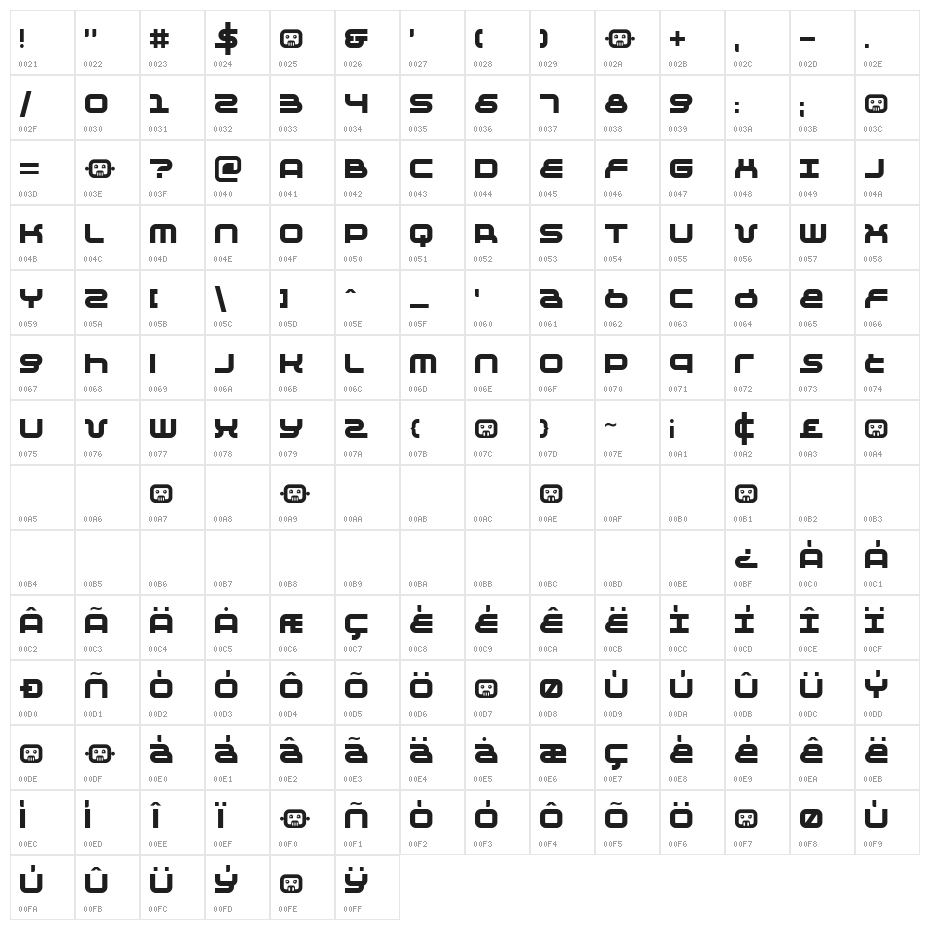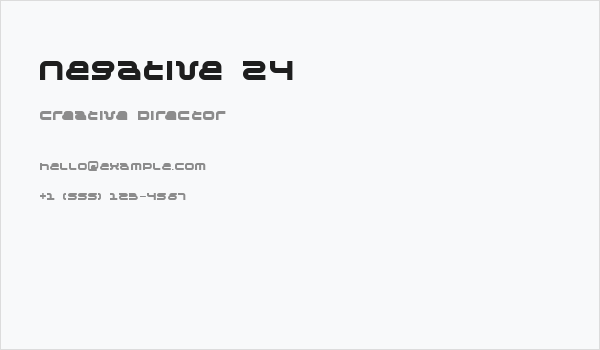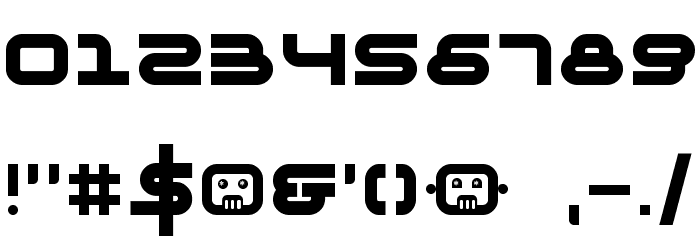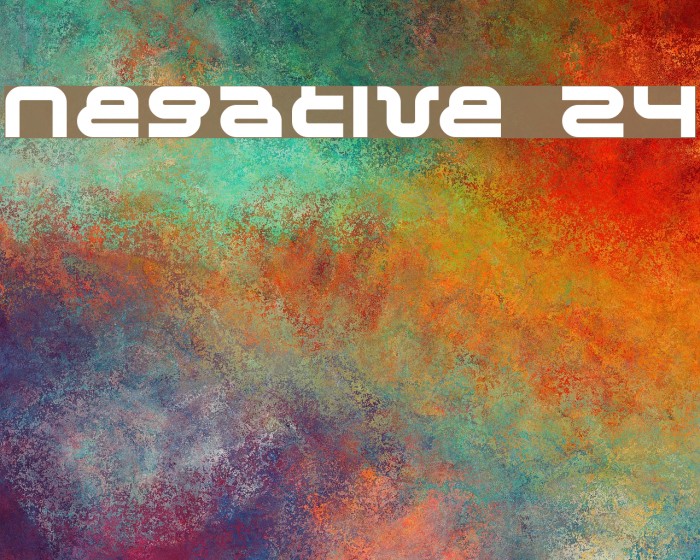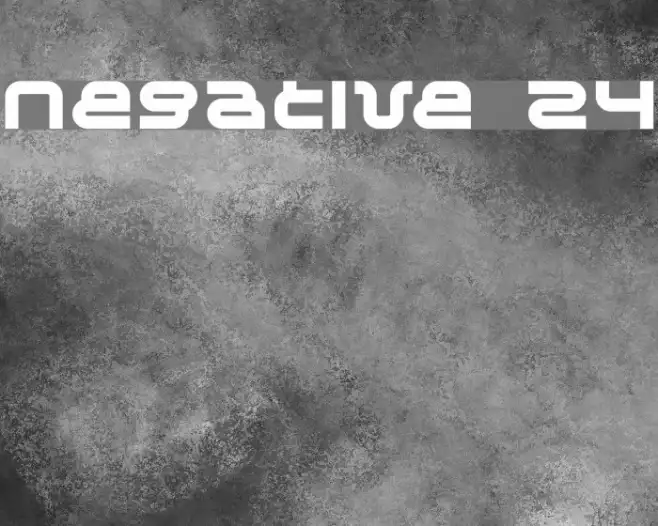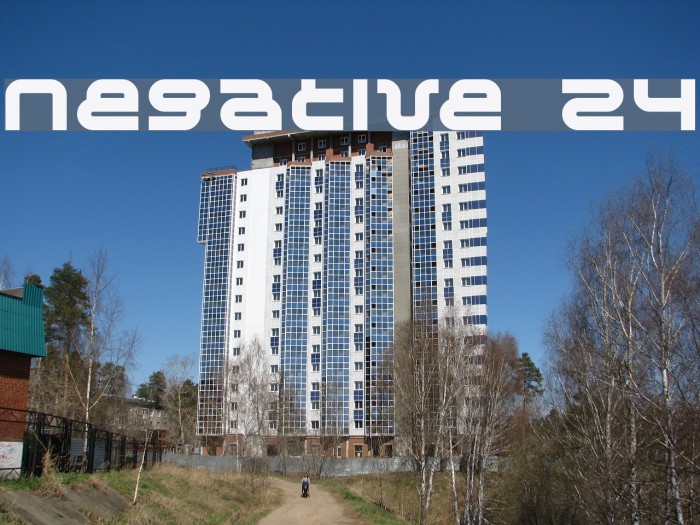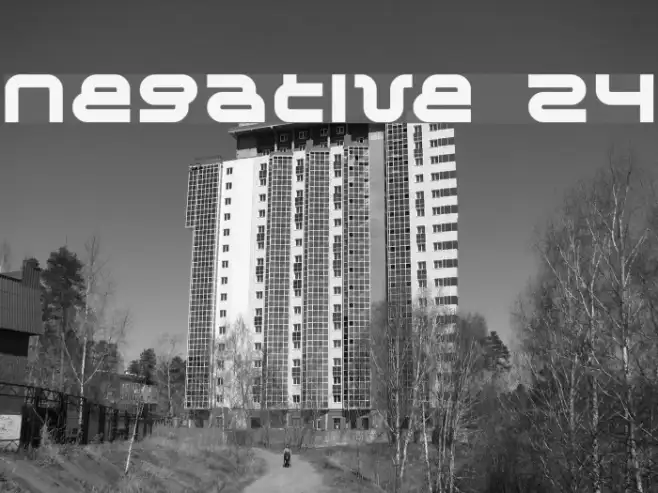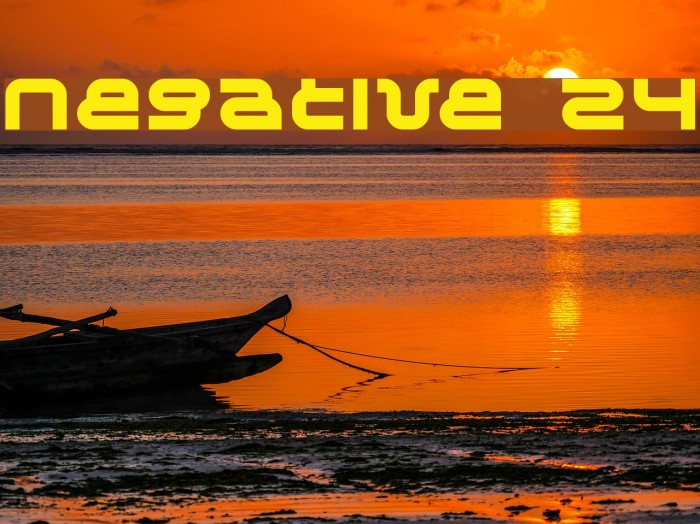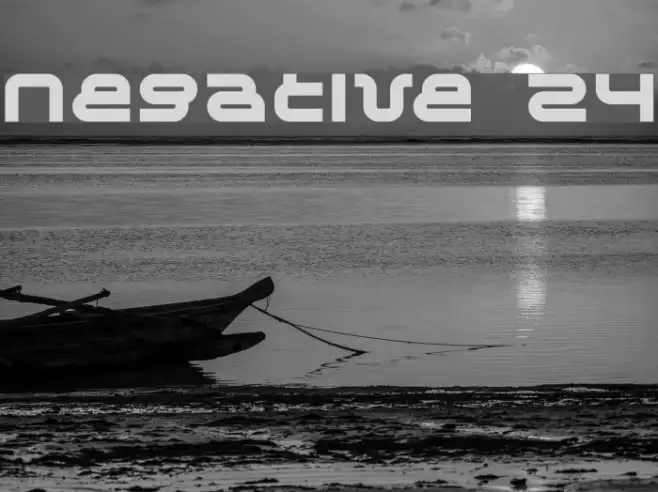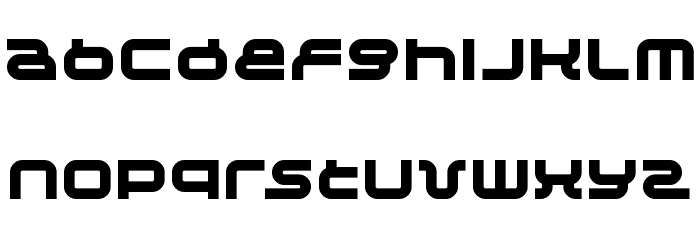
Negative 24 Font
Negative 24 Description
This font features a bold and futuristic design with geometric shapes and a strong presence. The characters are constructed with a consistent stroke width, giving it a uniform appearance. The uppercase letters have a squared-off style with rounded corners, while the lowercase letters maintain a similar aesthetic, ensuring readability. The numerals are distinct and follow the same geometric pattern, making them easily distinguishable. Special characters are included, adding versatility to the font. This typeface is ideal for projects that require a modern and tech-inspired look.
| Use Case | Logos, Headlines, Posters |
| Proposed Projects | Ideal for technology branding, sci-fi themed projects, video game interfaces, and modern advertising campaigns. |